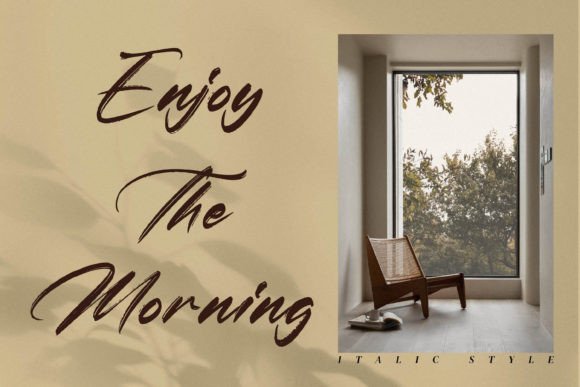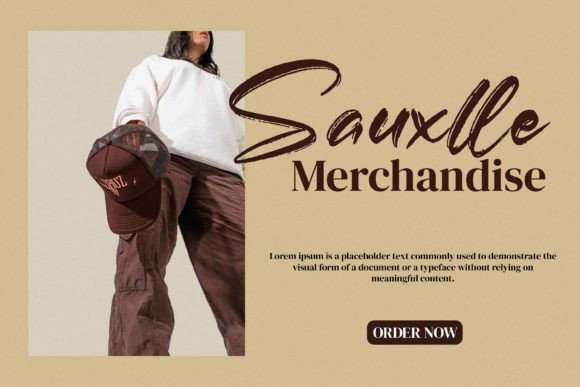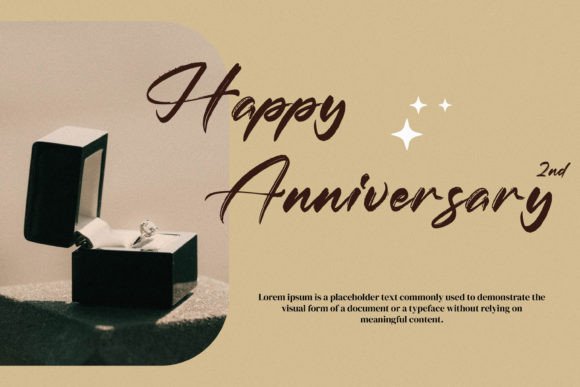
Introduction to Predikat Oneday Font
Predikat Oneday is an exquisite handwritten font, masterfully designed to become a true favorite.
Key Features of Predikat Oneday Font
Why Choose Predikat Oneday Font?
Predikat Oneday Font offers exceptional quality and versatility, making it a valuable addition to your design toolkit. Whether you’re creating for personal projects or commercial use, Predikat Oneday Font delivers professional results.